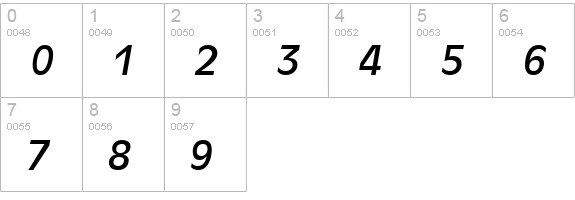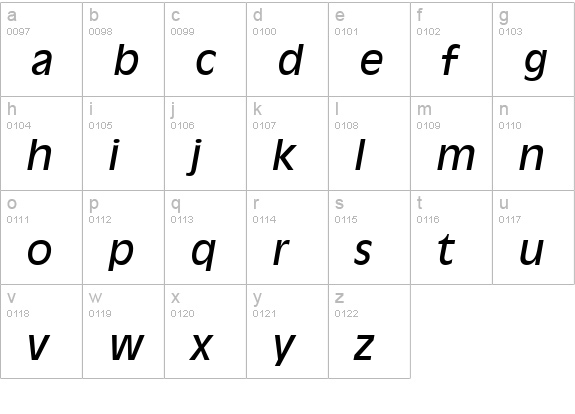
Decade SSi Italic is a distinctive, italic variant in the Decade typeface family \xE2\x80\x94 well suited to design and typography projects.
Decade SSi Italic font is a stylish and elegant typeface that exudes sophistication and modernity. Its sleek lines and slanted design add a touch of flair to any project, making it perfect for both professional and creative purposes. The italicized form of this font brings a sense of movement and dynamism to your text, making it stand out and capture attention. Not only does Decade SSi Italic font offer a unique and eye-catching look, but it is also available for free download at FontsMarket.com. This means that you can easily access and use this beautiful font in your designs without any cost. Whether you're working on a branding project, a website design, or any other creative endeavor, Decade SSi Italic font is sure to elevate your work and give it a touch of sophistication. Download it today and add a touch of elegance to your projects!